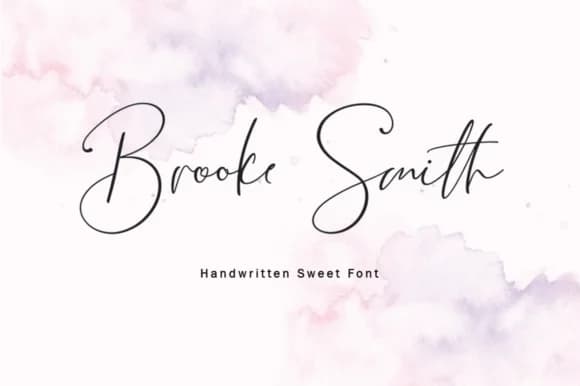
Brooke Smith by mightype89 is a modern calligraphy script that seamlessly bridges contemporary design sensibilities with classic handwritten elegance. The flowing letterforms capture the fluid, organic quality of brush lettering while maintaining the precision and clarity needed for both digital and print applications.
This versatile typeface excels for wedding invitation suites, where its graceful strokes add timeless sophistication to save-the-dates, ceremony programs, and reception details. Beyond celebrations, it's equally compelling for luxury cosmetics packaging, artisan product labels, and personalized stationery designs that demand understated refinement and visual distinction. The font's balanced weight and consistent baseline structure make it suitable for both striking headlines and substantial body text, giving designers the flexibility to scale it thoughtfully across diverse project needs and contexts.
Whether creating social media graphics for lifestyle brands, designing custom greeting card templates, or developing cohesive visual identities for boutique businesses, Brooke Smith delivers the handcrafted authenticity that modern consumers increasingly seek without sacrificing clarity or legibility. Its contemporary approach to calligraphy feels refreshingly modern rather than ornate, making it particularly appealing to design-conscious audiences who appreciate genuine craftsmanship and thoughtful artistic restraint.
Brooke Smith Script Font is a script font that shines as a display or heading face. Pair it with a clean sans-serif or serif font for body text β the contrast creates a clear hierarchy while the two styles stay balanced and easy to read.